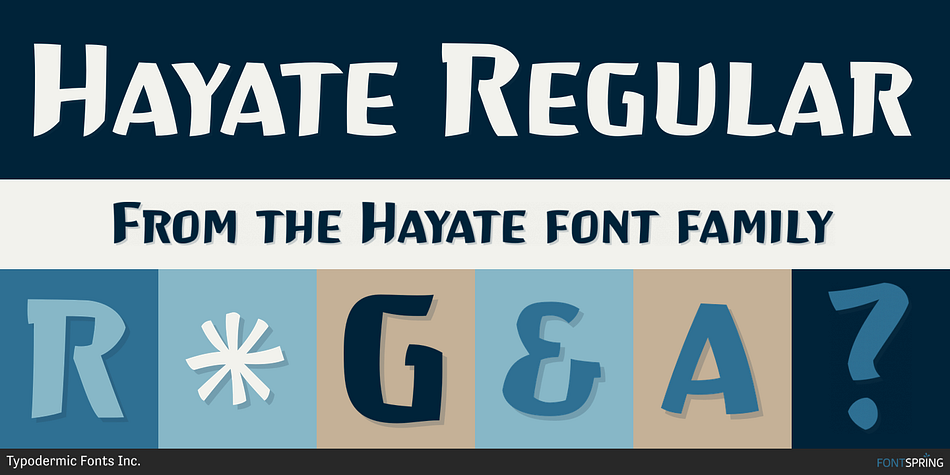
Hayate Regular
Hayate is a hand display font published by Typodermic Fonts Inc.
Introducing Hayate, a resilient small-cap typeface that draws inspiration from the strength and texture of sliced bamboo. This typeface features a rugged design that is perfect for creating a bold and impactful message.
With its Japanese influence and subtle nod to the American pseudo-Asian restaurant aesthetic of the twentieth century, Hayate evokes a sense of nostalgia and intrigue. However, it’s important to note that this font should be used with care. In certain contexts, it could be seen as culturally insensitive and contribute to casual racism.
Before using Hayate, take a moment to consider the message you are trying to convey and ensure that it aligns with your values and beliefs. By using this font thoughtfully, you can create impactful designs while also being mindful of cultural stereotypes. Choose Hayate for a typeface that’s as strong and sturdy as the message you want to convey.